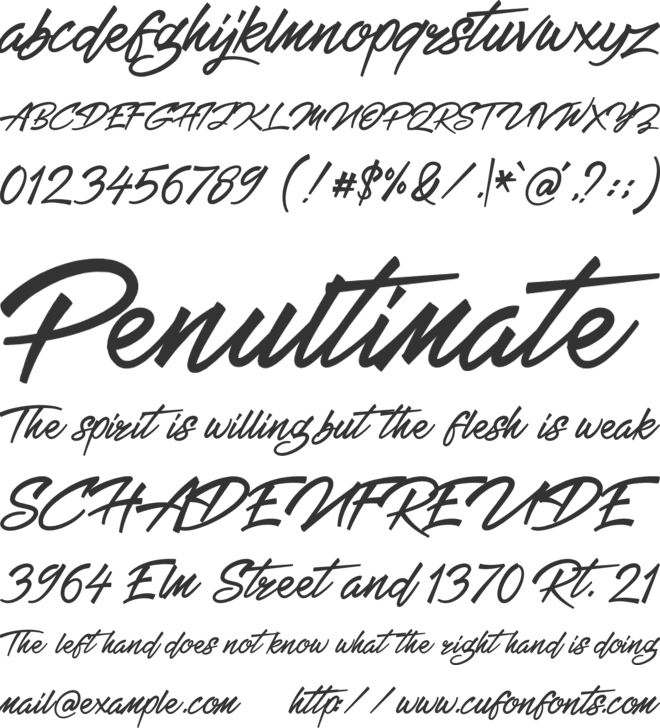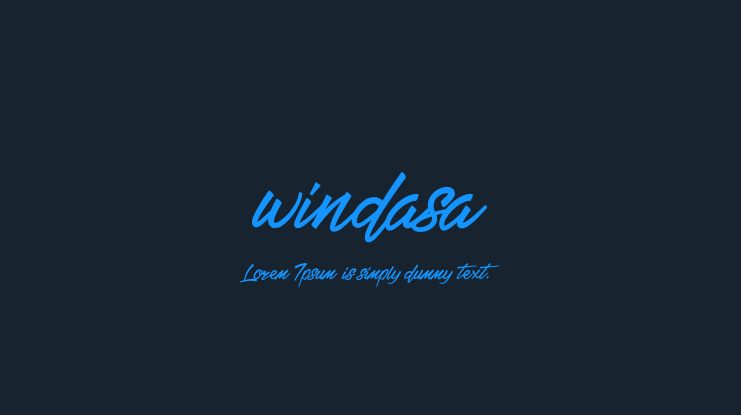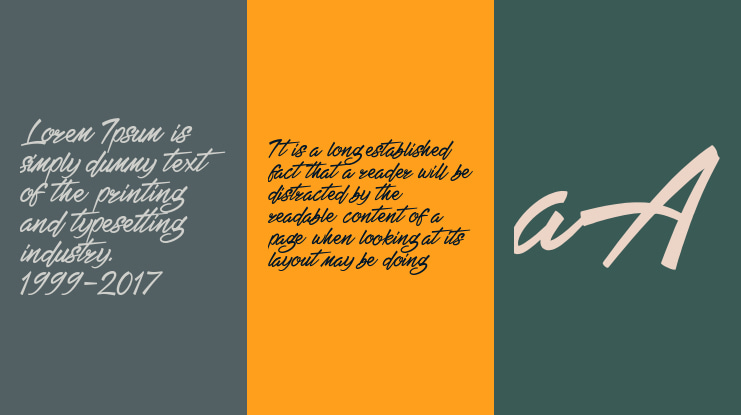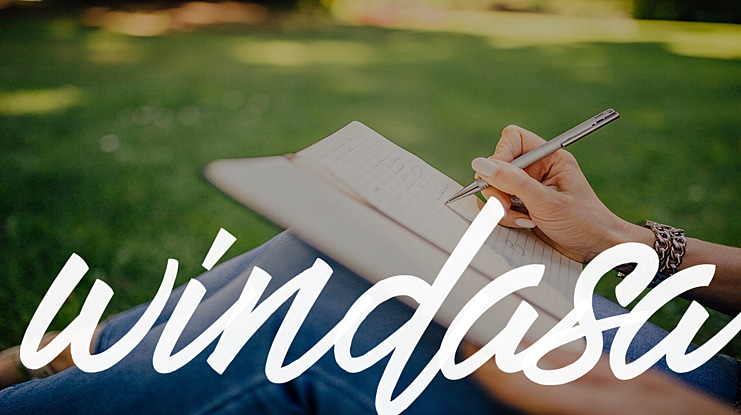
windasa Font
Windasa is a hand lettering display font , this font built with OpenType features and includes swashes, numbers, alternates, ligatures and it also supports other languages .this is a font that you can use to design clothes, banners, posters, logos, hand lettering and various other designs.